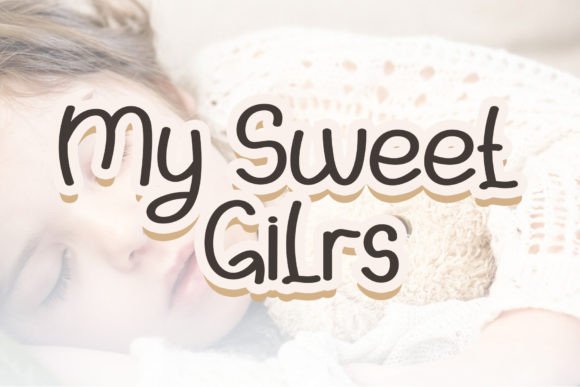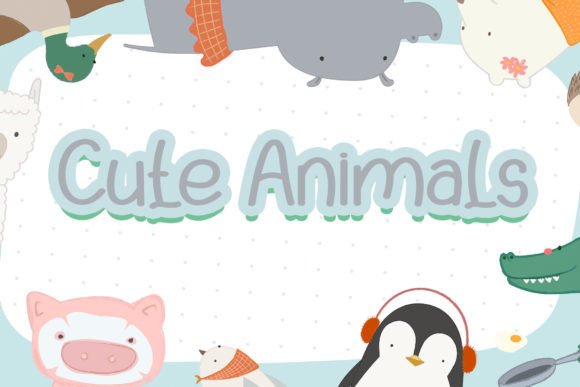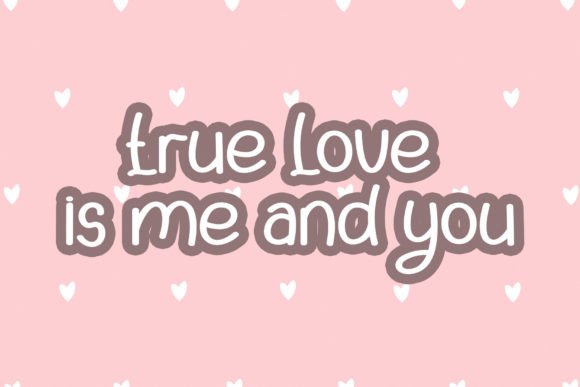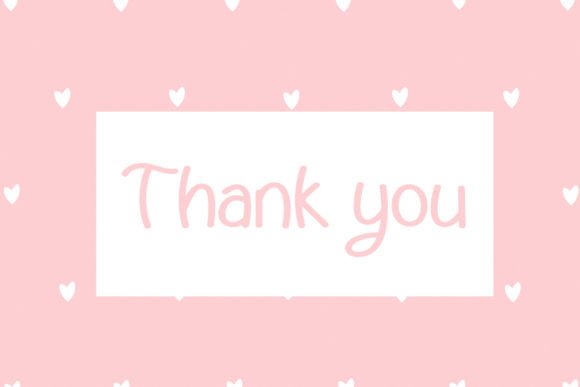
Baby Bear Font: The Sweet and Friendly Handwritten Font for Your Designs
Are you looking for a font that can add a touch of warmth and friendliness to your designs? Look no further than the Baby Bear Font! This sweet and friendly handwritten font is perfect for creating beautiful wedding invitations, cards, and other designs that require a fun and playful touch.
What is Baby Bear Font?
Baby Bear Font is a fresh and neat handwritten font that is designed to bring a sense of joy and innocence to your designs. Its sweet and friendly appearance makes it ideal for a wide range of projects, from wedding invitations and cards to posters, flyers, and more.
Key Features of Baby Bear Font
- Sweet and Friendly Appearance: Baby Bear Font has a unique and charming appearance that is sure to capture the hearts of your audience.
- Handwritten Style: This font features a beautiful handwritten style that gives it a personal and intimate feel.
- Fresh and Neat: The font is designed to be clean and easy to read, making it perfect for use in a variety of designs.
- Versatile: Baby Bear Font can be used for a wide range of projects, from wedding invitations and cards to posters, flyers, and more.
Uses of Baby Bear Font
Baby Bear Font is a versatile font that can be used for a wide range of projects, including:
- Wedding Invitations: Add a touch of romance and sweetness to your wedding invitations with Baby Bear Font.
- Cards: Create beautiful and personalized cards for birthdays, anniversaries, and other special occasions.
- Posters and Flyers: Use Baby Bear Font to create eye-catching posters and flyers for events, promotions, and more.
- Social Media Graphics: Add a personal touch to your social media graphics with Baby Bear Font.
Why Choose Baby Bear Font?
There are many reasons why Baby Bear Font is a great choice for your designs. Here are a few:
- Unique and Charming: Baby Bear Font has a unique and charming appearance that will set your designs apart from the rest.
- Easy to Read: The font is clean and easy to read, making it perfect for use in a variety of designs.
- Versatile: Baby Bear Font can be used for a wide range of projects, making it a great addition to your font collection.
Tips for Using Baby Bear Font
Here are a few tips for using Baby Bear Font in your designs:
- Pair with Other Fonts: Baby Bear Font pairs well with other fonts, so feel free to experiment with different combinations.
- Use for Headings and Body Text: Baby Bear Font is suitable for use in both headings and body text, making it a great choice for a wide range of designs.
- Add a Personal Touch: Use Baby Bear Font to add a personal touch to your designs and make them more relatable to your audience.
Baby Bear Font is a sweet and friendly handwritten font that is perfect for adding a touch of warmth and friendliness to your designs. With its unique and charming appearance, fresh and neat style, and versatility, it’s a great choice for a wide range of projects. Whether you’re a designer, crafter, or DIY enthusiast, Baby Bear Font is sure to become a favorite in your font collection.